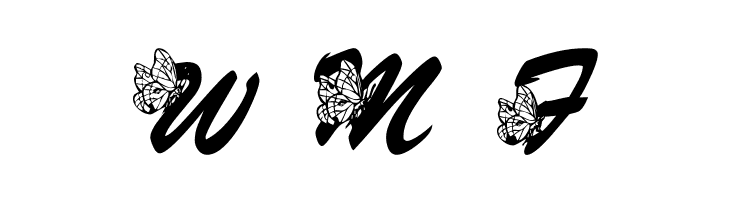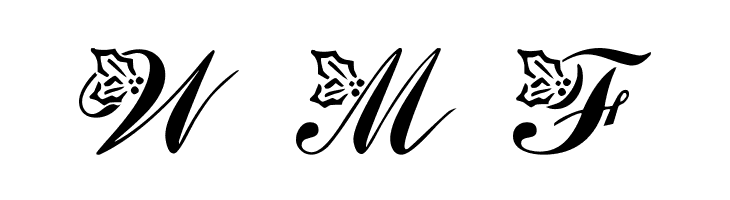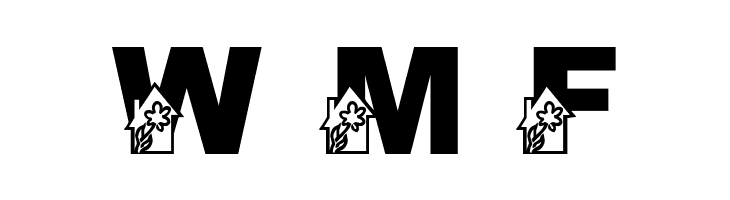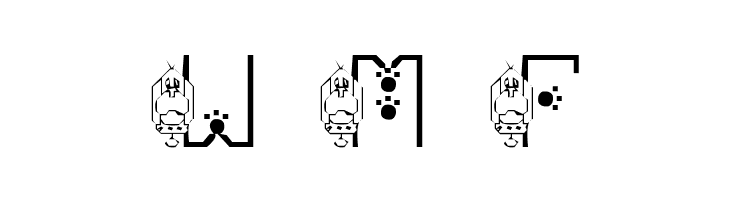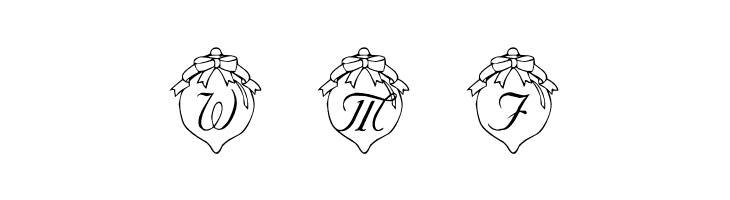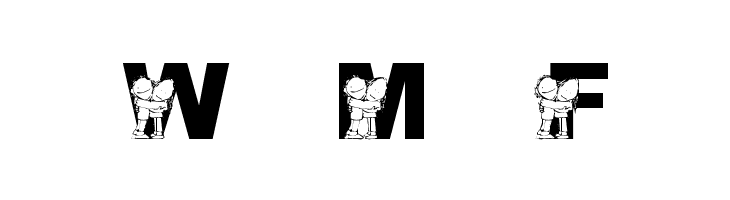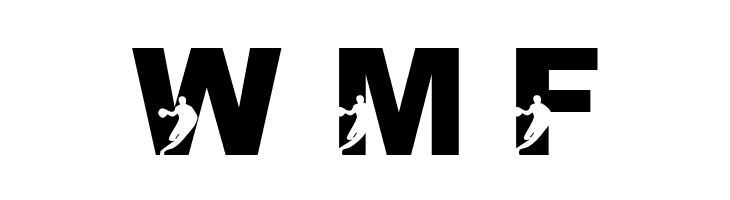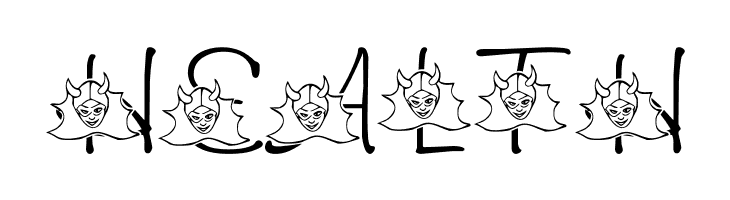
A decorative script font with integrated butterfly motifs.
A festive, decorative font with holly motifs, perfect for holiday themes.
A bold, decorative font with greenhouse-themed embellishments on each letter.
A playful, dog-themed decorative font with bold, outlined characters.
A decorative, holiday-themed font with script letters inside ornate ornaments.
A playful font with hugging character illustrations integrated into bold letters.
A decorative and artistic font with intricate feather-like details.
A bold, basketball-themed font with integrated player silhouettes.
A bold, playful font with superhero-themed embellishments on each letter.